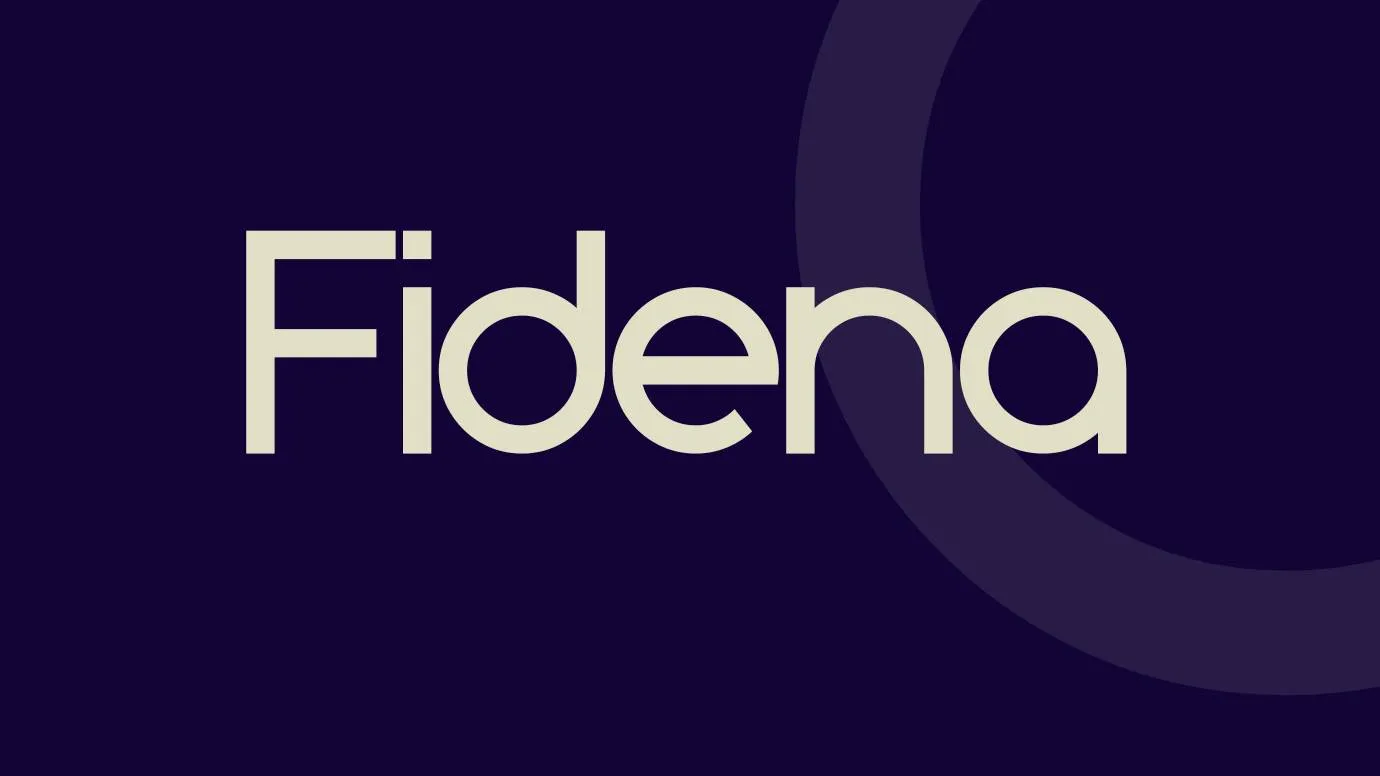
Fidena Font Family comes in the sans serif category and this font family has an outstanding look. The Fidena typeface was mainly designed by Pandan Wangi.
Fidena Font
NameFidena Font
TypeSans Serif
Designer Pandan Wangi